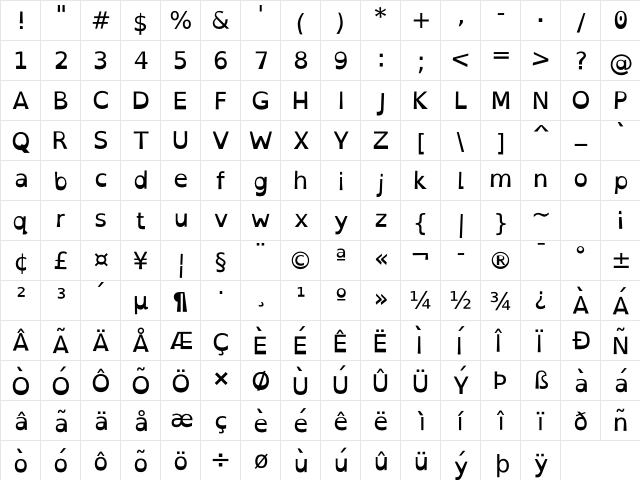
OpenDyslexic Regular
| Designer | Abelardo Gonzalez |
Design Context for OpenDyslexic Typeface
OpenDyslexic takes a measured approach to typography — its balanced proportions and neutral character make it a reliable workhorse for both digital and print work.